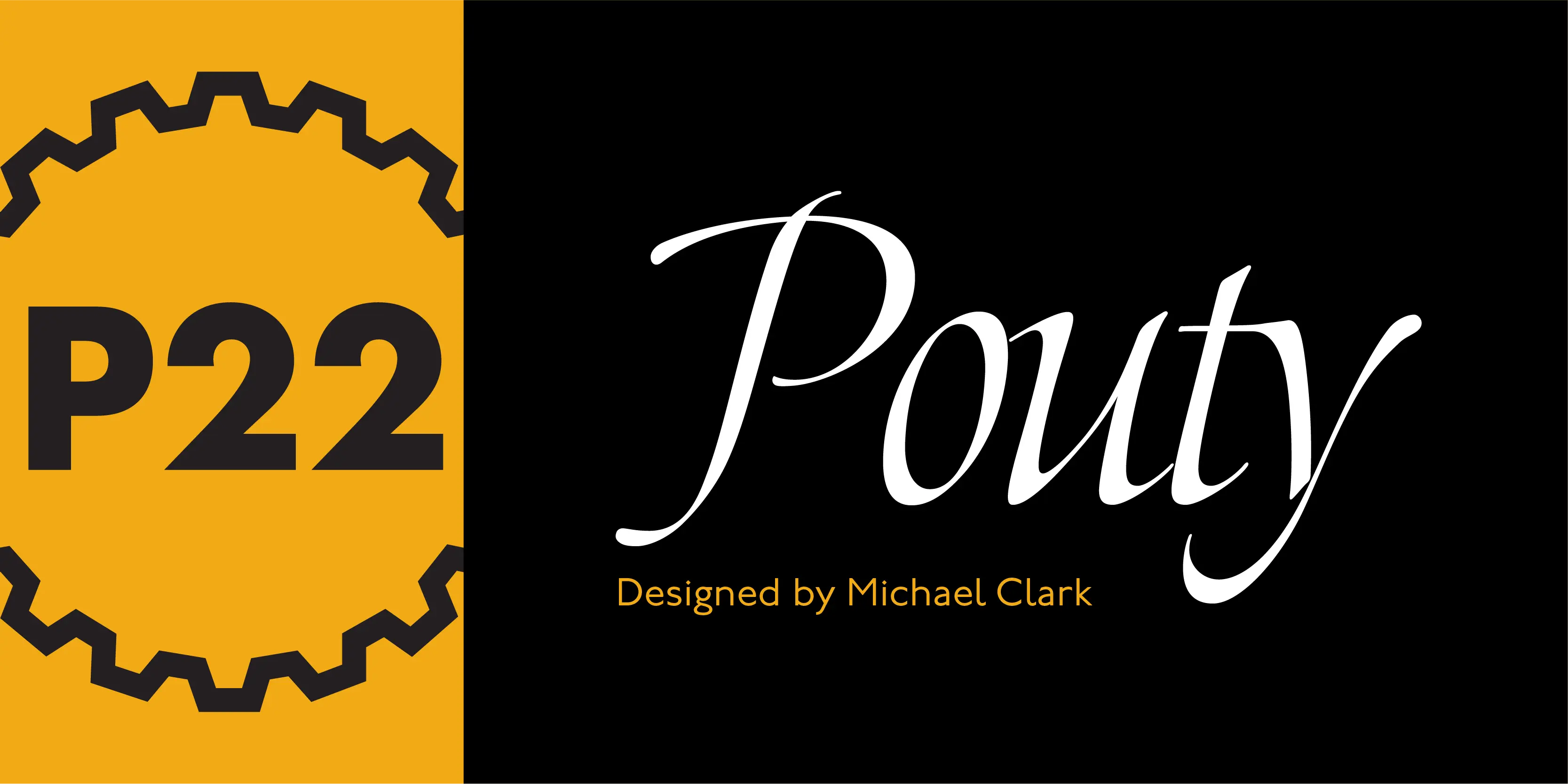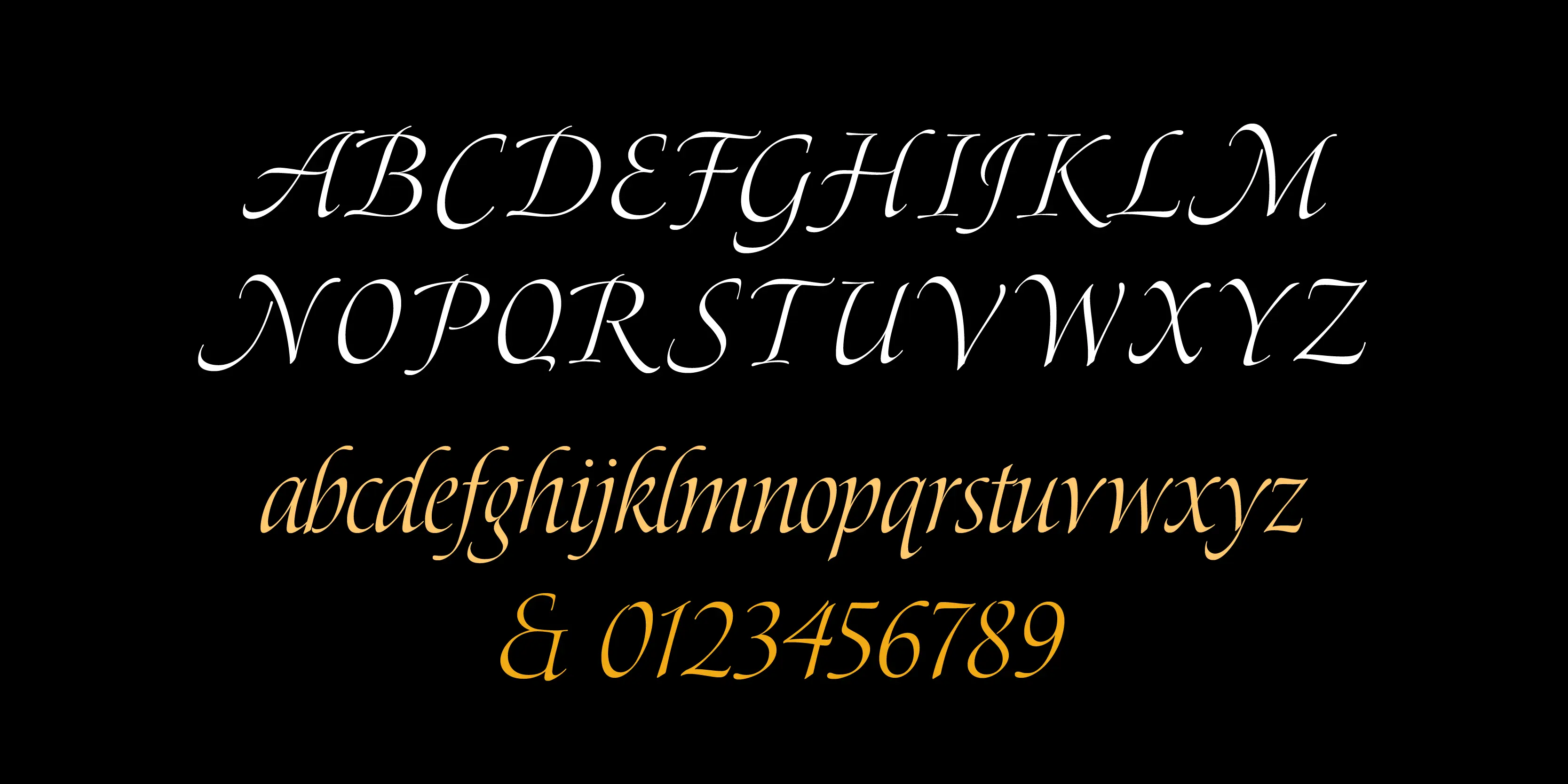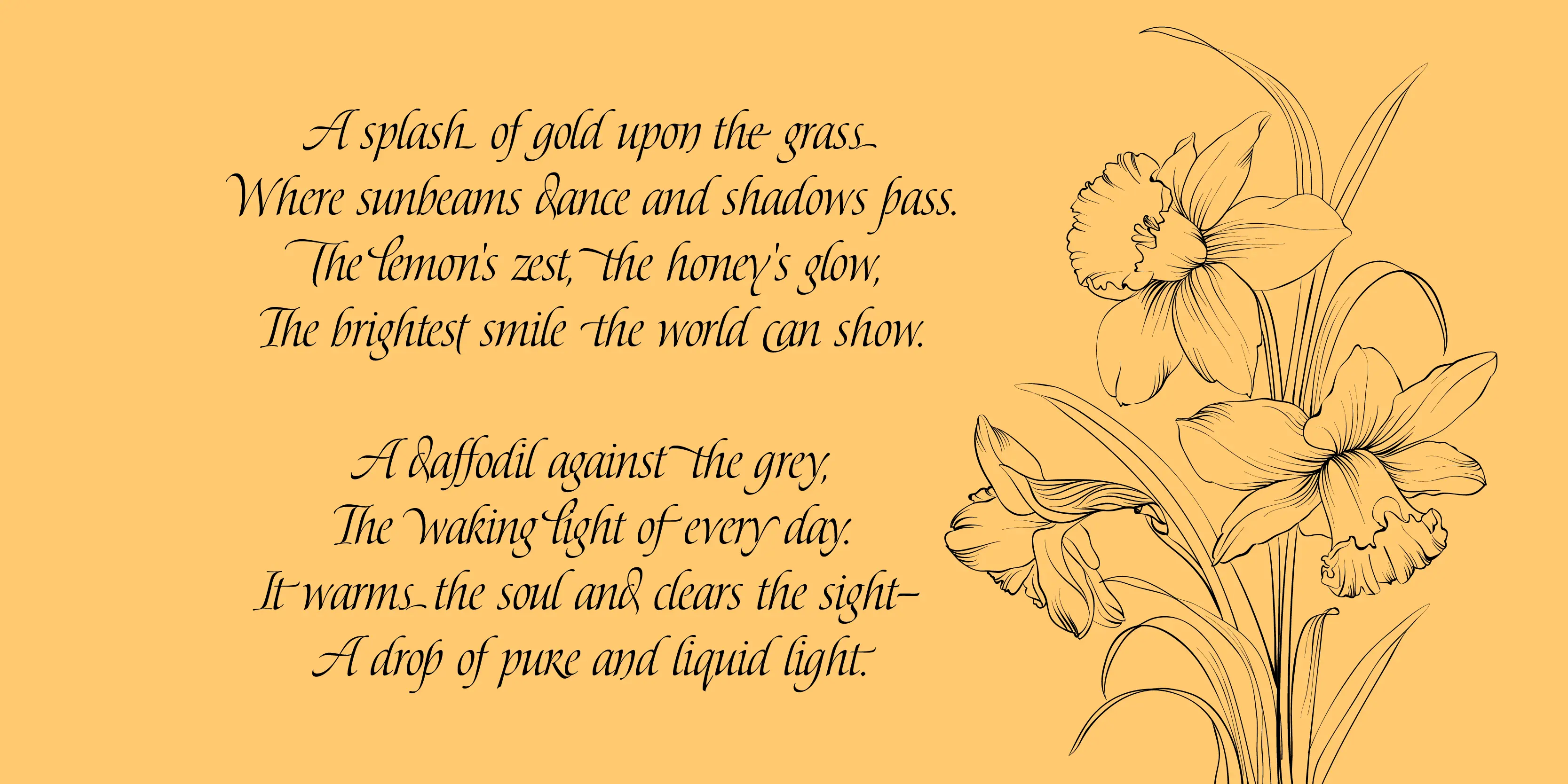
Pouty Font
Pouty
P22 Pouty is an elegantly modern Italic designed by commercial lettering artist Michael Clark named after his daughter Jennifer. Knowing that this script style was more utilitarian, he included a large set of ligatures and alternate characters giving it endless potential through variation. This offers typographers plenty of opportunities to give the look of true calligraphy. Designers needing something gracefully refined could easily use this for invitations, book covers, wine labels, and more.